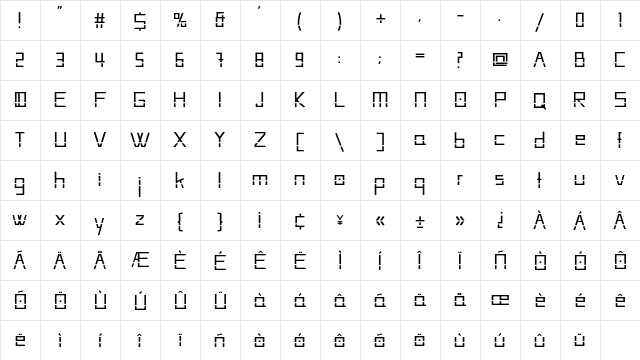
HUECO Regular
| Designer | Laura Bizzey |
Design Context for HUECO Typeface
HUECO is a composed and adaptable typeface that performs quietly and consistently across a wide range of design contexts.